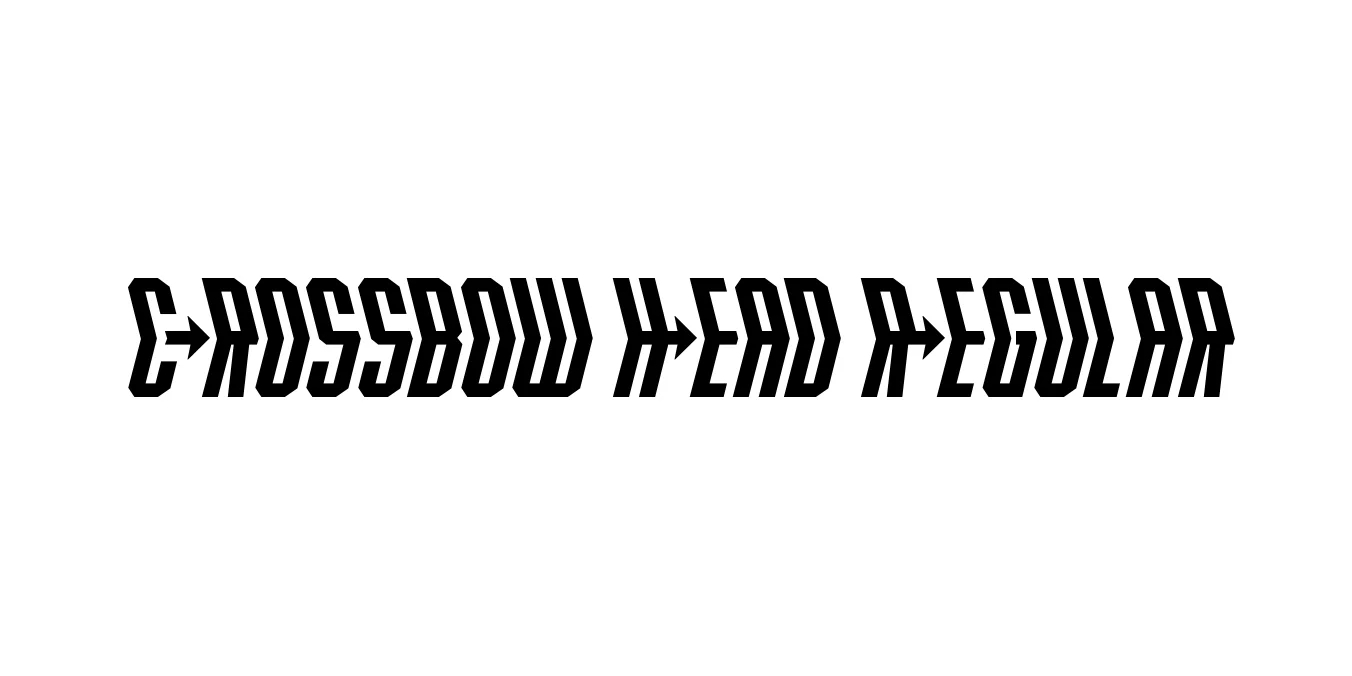
Crossbow Head Regular
Designed by Aga Silva
Crossbow Head Regular is a modern display typeface that emphasizes verticality and condensed structural integrity. Designed with a clean, industrial aesthetic, this font features high-impact letterforms that are optimized for visibility and authority. Its geometric precision and tight kerning make it a standout choice for designers looking to convey strength and technical sophistication in their visual compositions.
The font's history is rooted in the need for a versatile sans-serif that functions efficiently in space-constrained environments such as digital interfaces and editorial headlines. Over time, Crossbow Head Regular has become a favorite in the gaming and tech industries due to its futuristic yet legible design. It maintains a professional balance between rugged industrialism and sleek, contemporary minimalism, ensuring it remains relevant across various media formats.
Crossbow Head Regular Best Uses
Perfect for bold, eye-catching titles and magazine headers.
Ideal for technology, construction, and automotive logos.
Excellent for UI elements and futuristic game titles.
Highly effective for large-scale print media requiring high impact.